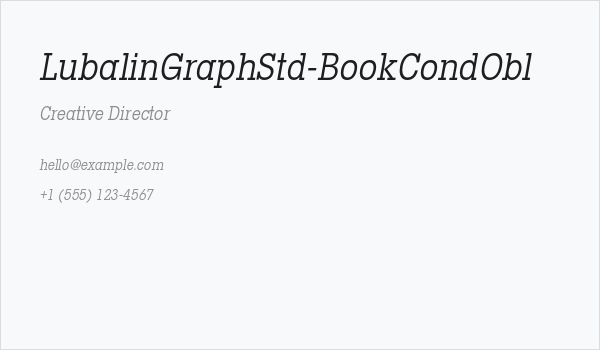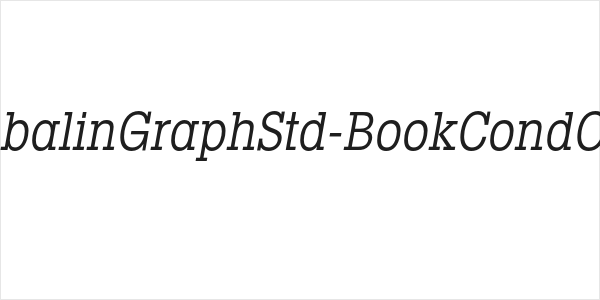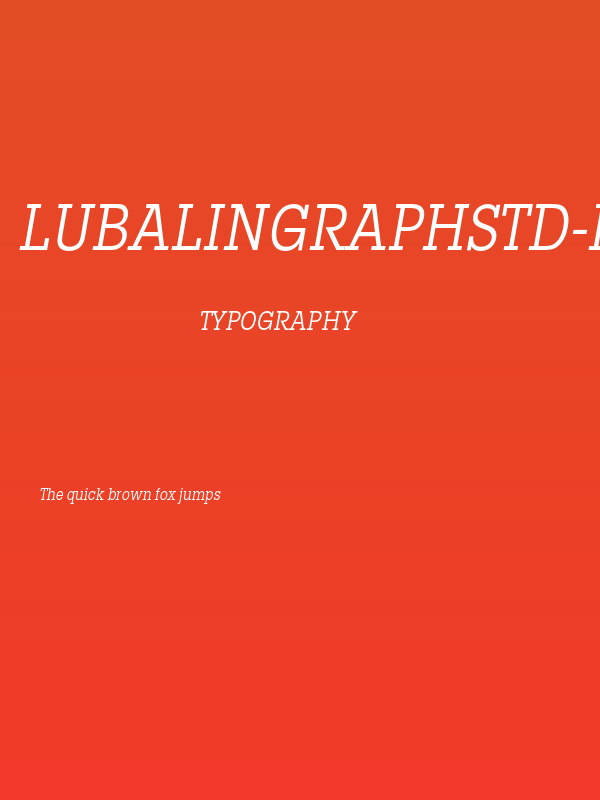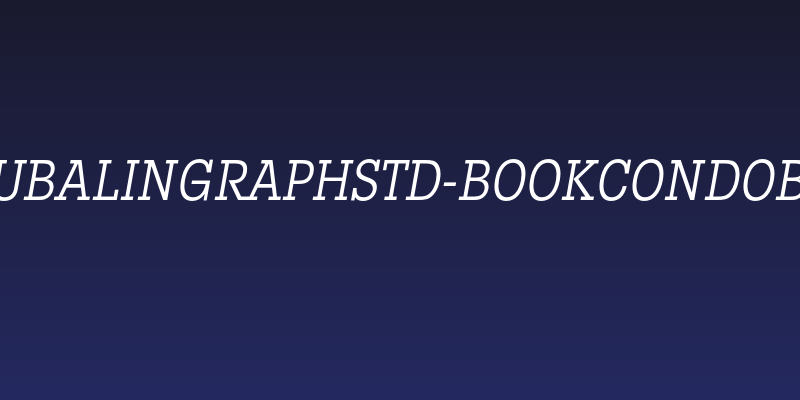
LubalinGraphStd-BookCondObl Font
LubalinGraphStd-BookCondObl Description
This font features a clean and modern serif style with a slightly condensed width, giving it a sleek and sophisticated appearance. The characters are elegantly slanted, adding a dynamic and italicized feel to the text. The strokes are consistent and well-defined, providing a medium contrast that enhances readability while maintaining a stylish aesthetic. The font's design is versatile, making it suitable for both digital and print media. Its balanced proportions and clear structure make it ideal for conveying professionalism and elegance.
| Proposed Projects | Ideal for editorial design, branding, and advertising materials where a touch of elegance and modernity is desired. |